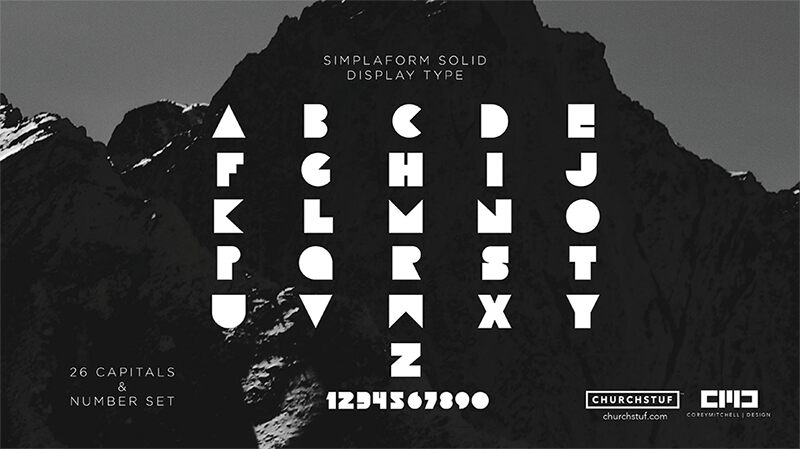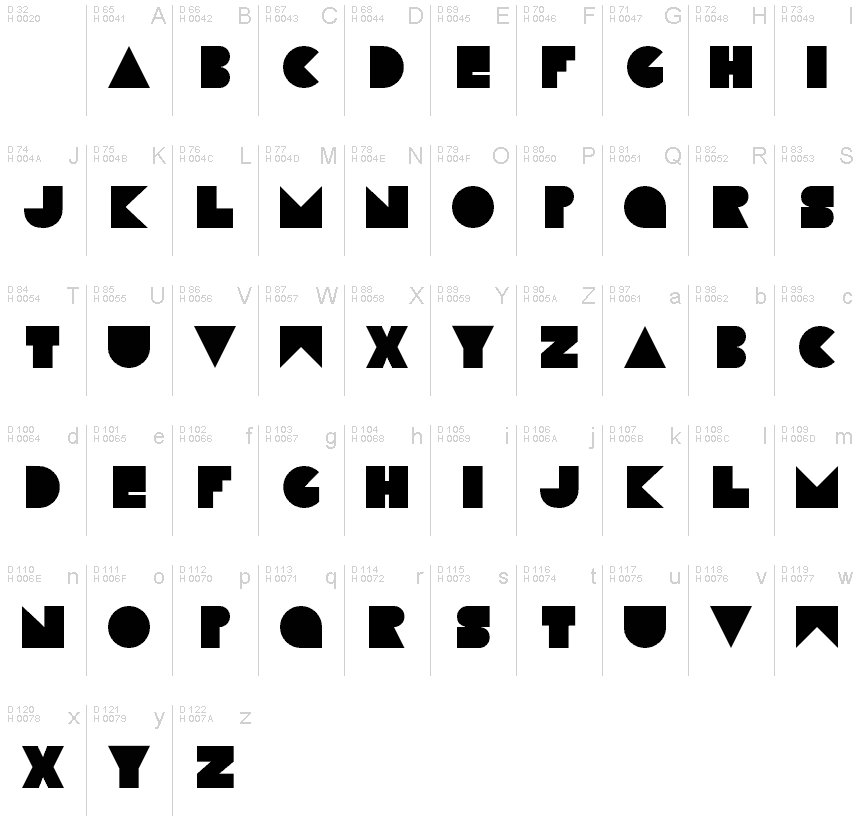
Simplaform Solid
I hope you like this display type as much as I do! I wanted to try to make the alphabet in its simplest (recognizable) form... hence the name Simplaform.